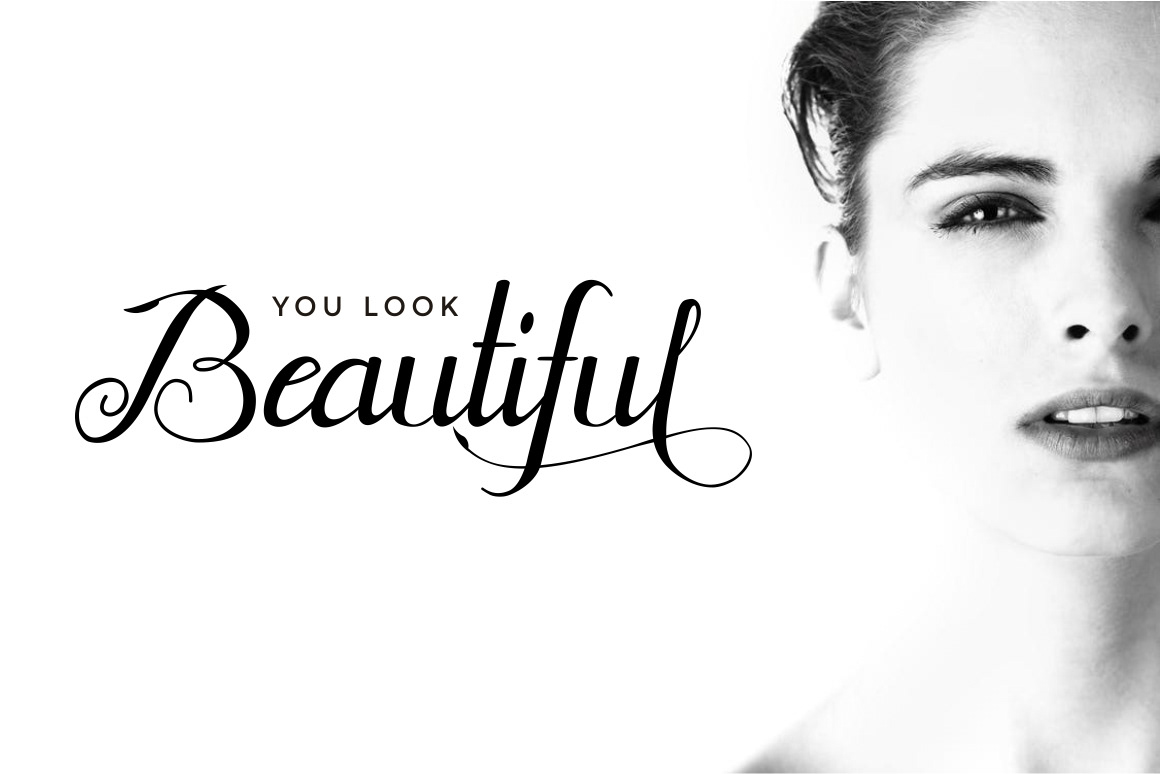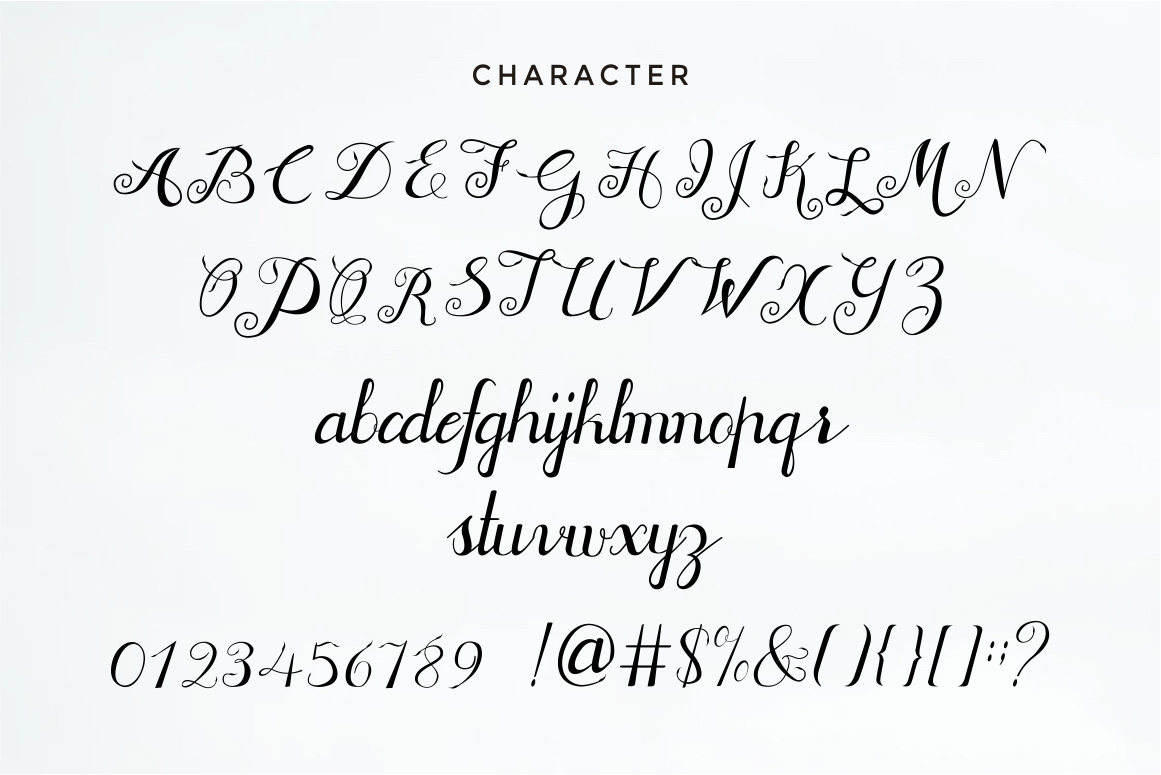
Pattricia Script Font
Pattricia is a distinct graceful script font. Add this romantic looking font to each of your love letters, wedding invitations or favorite design ideas, and you will be astounded by the outcome.